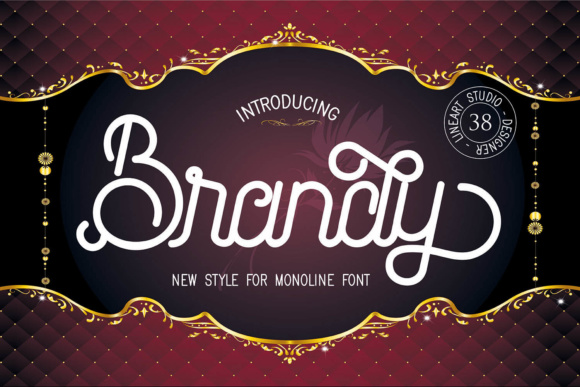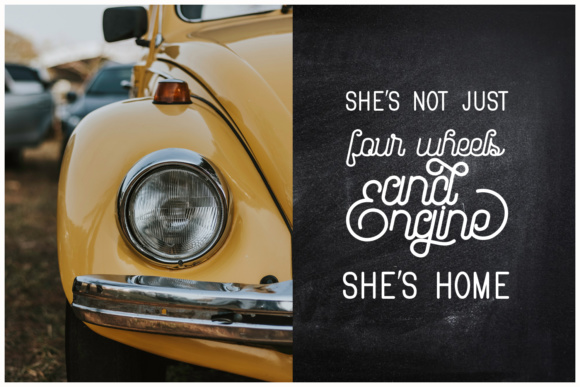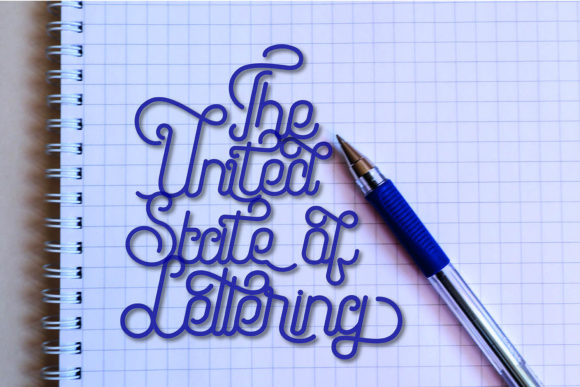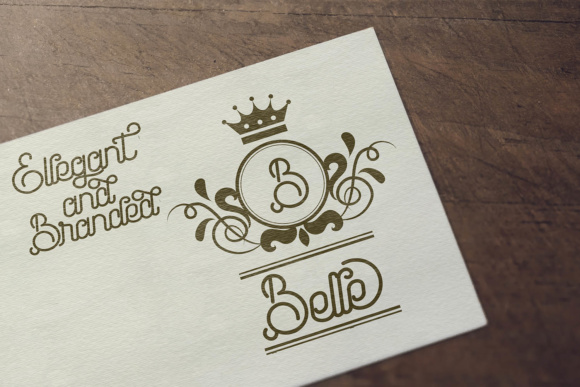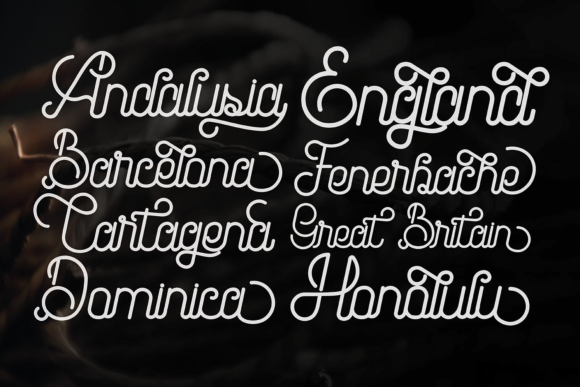
About Brandy Font
The Brandy is a monoline font duo which comes in two variations: script and serif. The script comes in a regular and clean version, and the serif comes in a regular version which consists of capital letters to complete the rhythm of your mono design. It has an elegant, vintage touch which makes it perfect for logos, web banners, quotes, and much more!